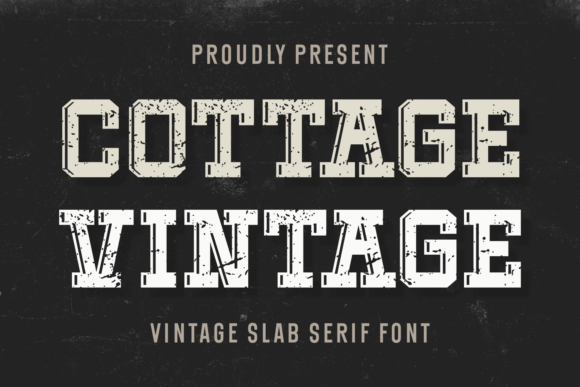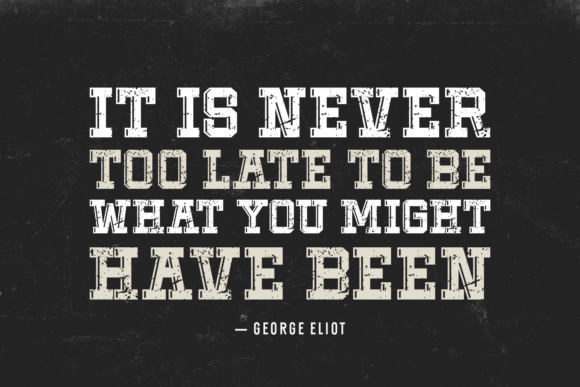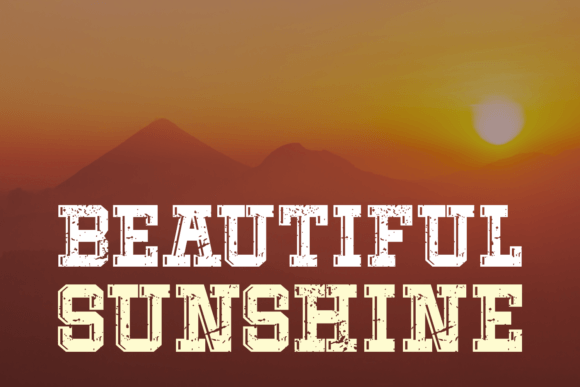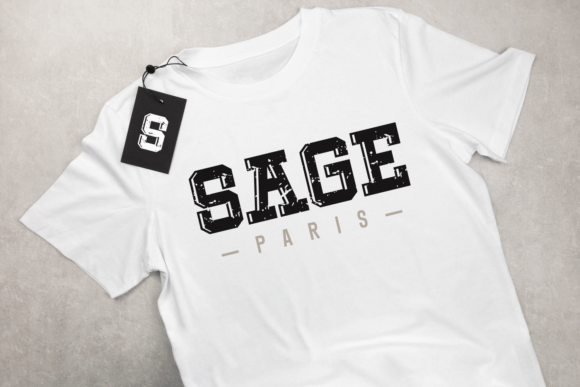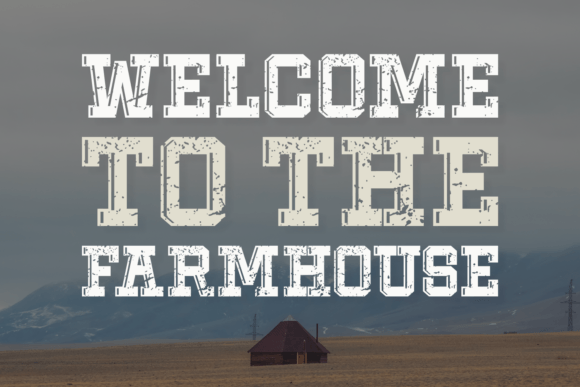
Cottage Vintage Font
About Cottage Vintage Font
Cottage Vintage is a classic vintage slab serif font that brings a touch of nostalgia to your designs. With sturdy and timeless letterforms, it effortlessly captures the essence of a bygone era. This font is perfect for projects that require a rustic and enduring aesthetic. Whether you’re working on signage, branding, or any design where a vintage touch is needed, Cottage Vintage adds a touch of retro charm with its simple and distinctive style.